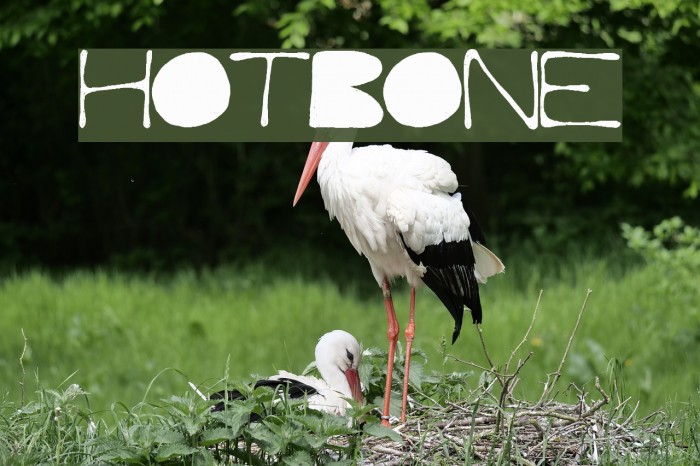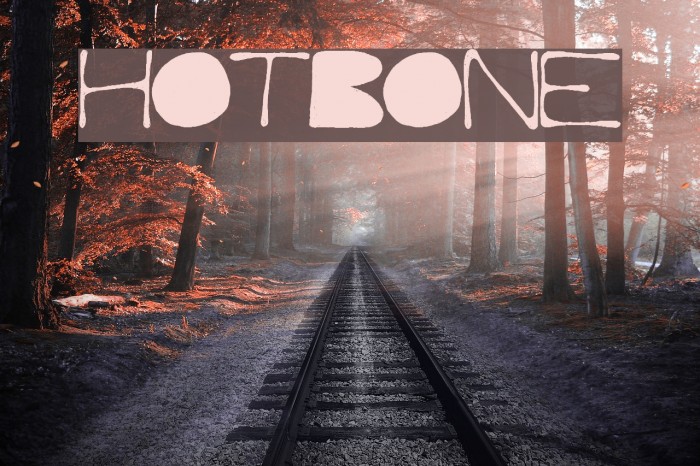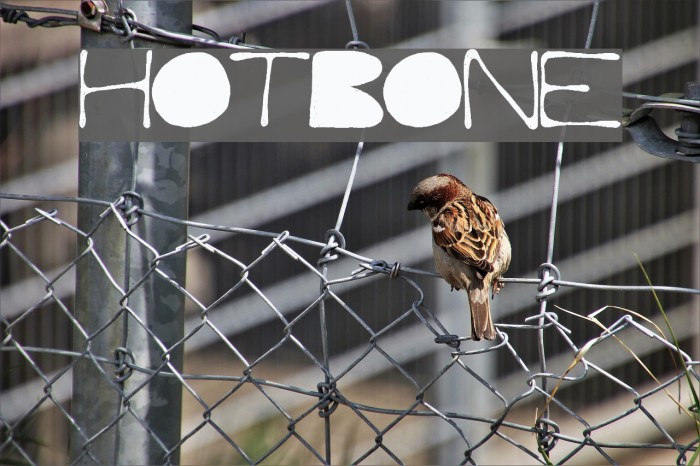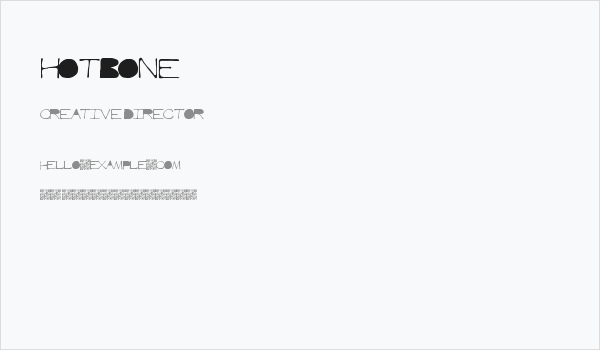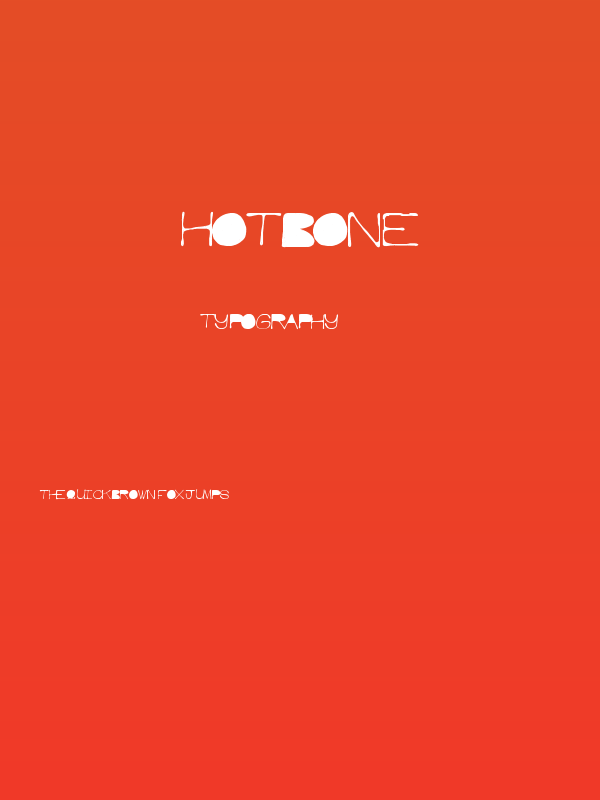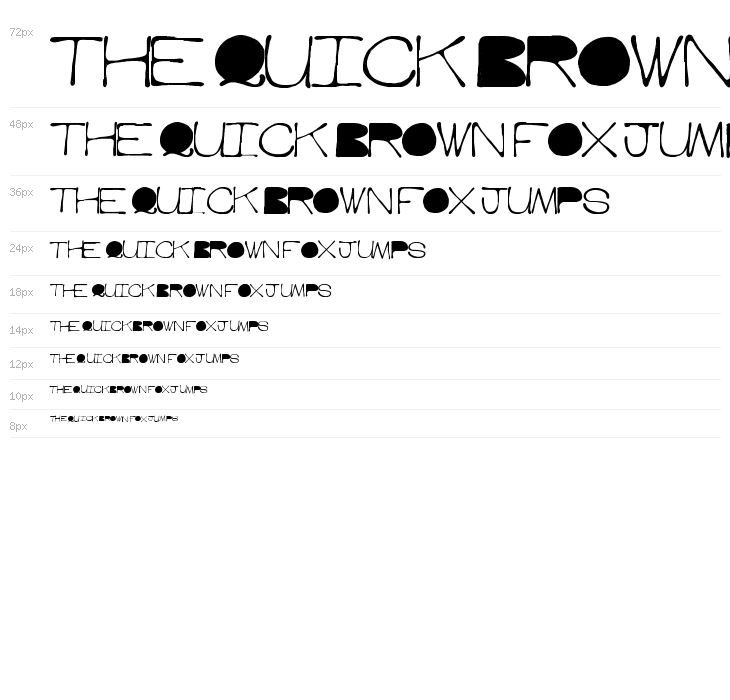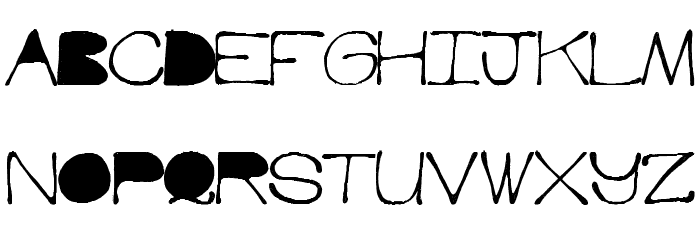
HotBone Font
HotBone Description
This font features a unique and playful design, characterized by its irregular and organic shapes. The letters have a hand-drawn appearance, with varying stroke thickness that adds a dynamic and lively feel. The uppercase letters are bold and prominent, while the lowercase letters maintain a consistent style, offering a cohesive look. The overall design is reminiscent of a casual, artistic style, making it suitable for creative projects. The font's distinctive character is further enhanced by its quirky and whimsical elements, which give it a fun and approachable personality.
| Overall Style | Playful, Artistic |
| Use Case | Headlines, Posters, Creative Branding |
| Proposed Projects | Ideal for children's books, creative posters, and playful branding projects. |